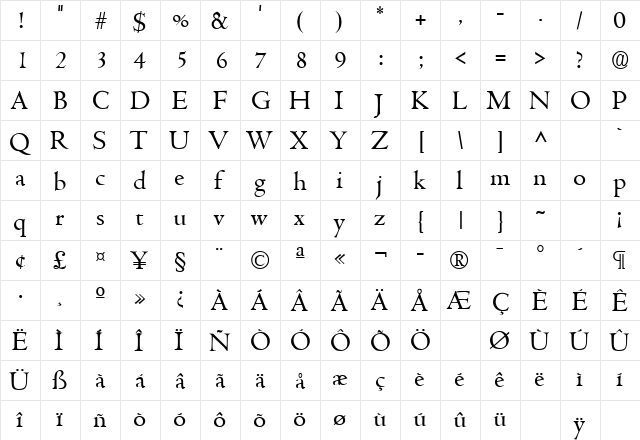
Centus Regular Font Preview
Centus Regular
Centus Regular Font Details
Design Context for Centus Typeface
Centus takes a measured approach to typography — its balanced proportions and neutral character make it a reliable workhorse for both digital and print work.